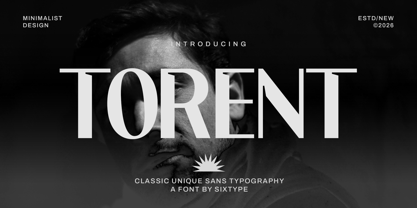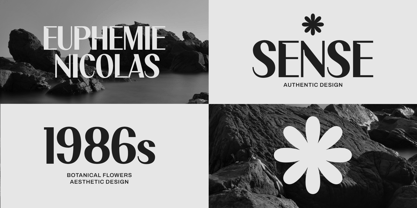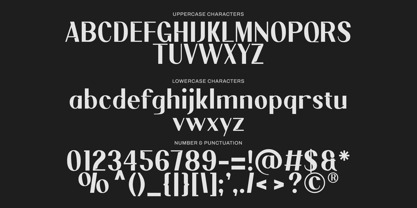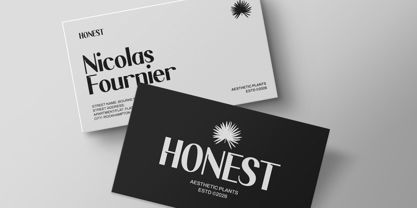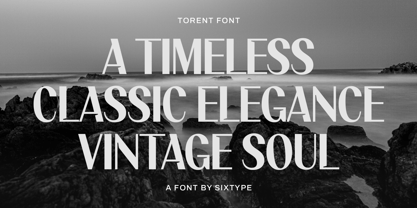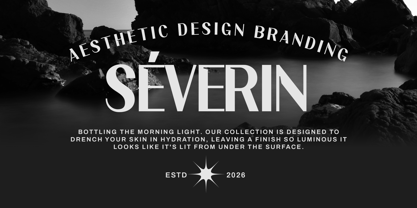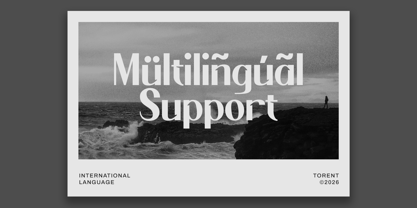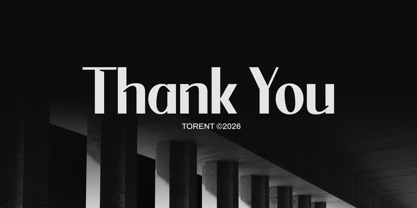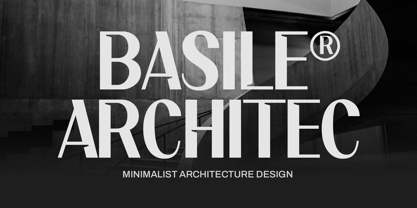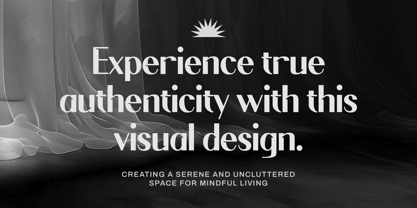
Torent
by Sixtype Foundry
The Torent Font Family and published by Sixtype Foundry. Torent contains 1 styles. More about this family
Torent is a contemporary sans serif typeface that seamlessly blends minimalist precision with subtle classic elegance. Its bold yet refined letterforms establish a strong visual presence while ensuring a clean, sophisticated balance. This typography possesses a timeless quality, enhanced by slightly stylized curves and distinctive details that infuse personality without compromising clarity. Perfect for branding, architecture, editorial layouts, and high-end visual identities, Torent offers a confident, modern aesthetic with a refined edge. Whether utilized for striking headlines or polished compositions, it evokes a sense of structure, elegance, and enduring style, making it an excellent choice for various design applications.